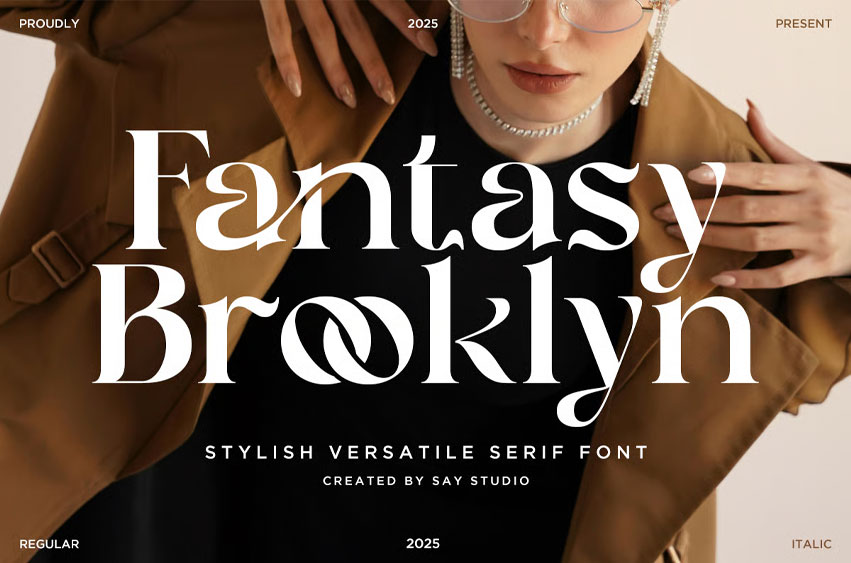
Fantasy Brooklyn Font
Fantasy Brooklyn Font is a stylish ligature serif font designed to bring modern elegance to every project. With refined curves, artistic ligatures,  and a confident editorial style, this typeface delivers a timeless visual presence suitable for premium branding and high-end creative work.
Perfect for designers who appreciate sophisticated details, Fantasy Brooklyn shines in fashion logos, magazine layouts, wedding stationery, and luxury packaging. Its balanced proportions and expressive alternates make it a beautifully adaptable font for professional use.
• Regular & Italic
• Uppercase & lowercase
• Stylistic Ligatures
Perfect For: Branding, packaging, editorial design, wedding stationery, magazine covers, fashion campaigns, logo design.